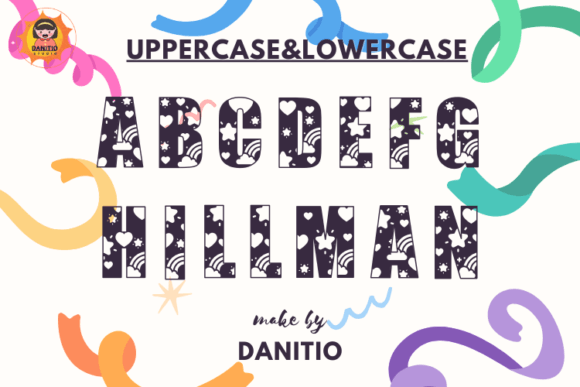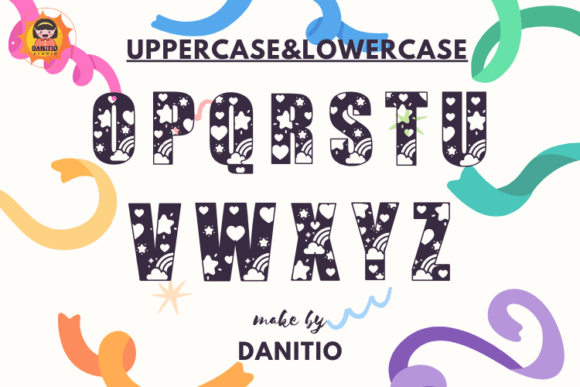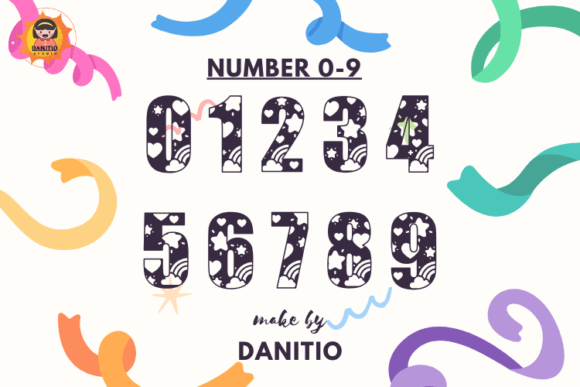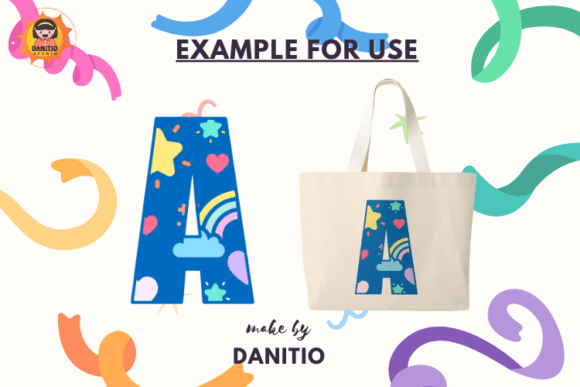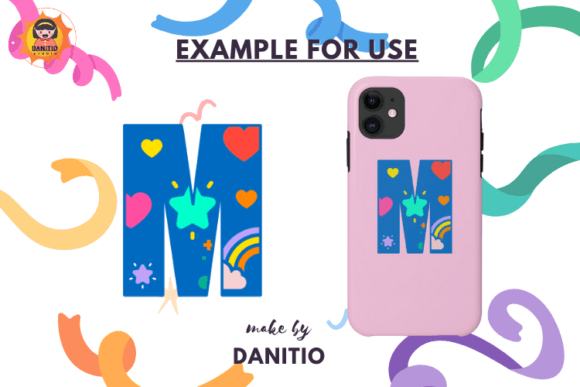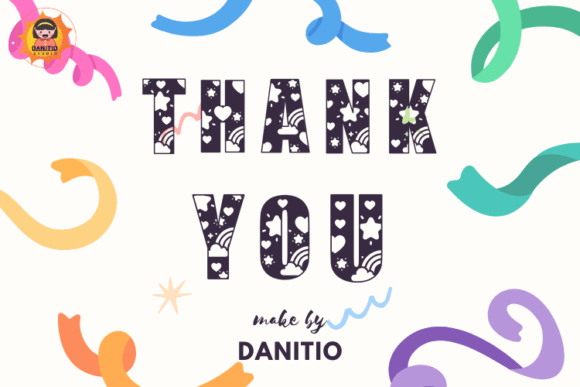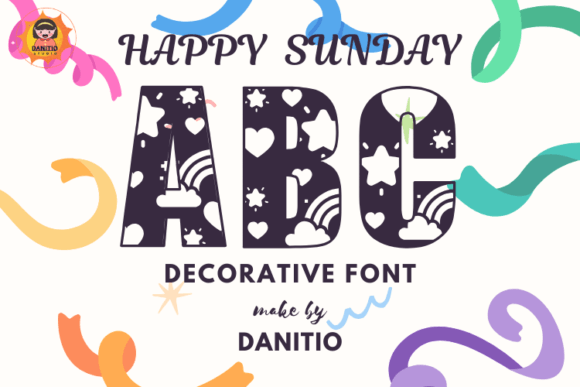
Happy Sunday Font: Add a Touch of Whimsy to Your Designs
Are you tired of using the same old fonts in your designs? Look no further than the Happy Sunday Font, a cute and eye-catching decorative font that’s sure to add a touch of whimsy to your projects. This beautiful font is perfect for designers and crafters who want to create fun and engaging content that stands out from the crowd.
What Makes Happy Sunday Font So Special?
Happy Sunday Font is a magical font that consists of letters decorated with sparkling celebration stars. The font is designed to be fun and playful, making it perfect for projects that require a lighthearted touch. Whether you’re creating posters, flyers, social media posts, or greeting cards, this font is sure to add a touch of personality to your designs.
Uses for Happy Sunday Font
Happy Sunday Font is a versatile font that can be used in a variety of projects, including:
- Posters: Create eye-catching posters for events, promotions, or announcements that will grab the attention of your audience.
- Flyers: Design flyers for parties, sales, or other events that will make your audience smile.
- Social Media Posts: Add a touch of whimsy to your social media posts and make them stand out from the crowd.
- Greeting Cards: Create cute and personalized greeting cards for special occasions like birthdays, holidays, or weddings.
- Stationery Artwork: Use Happy Sunday Font to create beautiful and eye-catching stationery artwork that will make your letters and notes stand out.
Why Designers and Crafters Love Happy Sunday Font
Designers and crafters love Happy Sunday Font for several reasons:
- Unique and Eye-Catching: The font’s sparkling celebration stars make it a unique and eye-catching addition to any design.
- Fun and Playful: The font’s playful design makes it perfect for projects that require a lighthearted touch.
- Versatile: Happy Sunday Font can be used in a variety of projects, from posters and flyers to social media posts and greeting cards.
Tips for Using Happy Sunday Font
Here are a few tips for using Happy Sunday Font in your designs:
- Use it sparingly: While Happy Sunday Font is eye-catching, it can be overwhelming if used too much. Use it sparingly to add a touch of whimsy to your designs.
- Pair it with other fonts: Happy Sunday Font pairs well with other fonts, such as sans-serif fonts or script fonts. Experiment with different pairings to find the one that works best for your design.
- Experiment with colors: The font’s sparkling celebration stars look great in a variety of colors. Experiment with different colors to find the one that works best for your design.
Happy Sunday Font is a beautiful and eye-catching decorative font that’s perfect for designers and crafters who want to add a touch of whimsy to their projects. With its sparkling celebration stars and playful design, this font is sure to make your designs stand out from the crowd. Whether you’re creating posters, flyers, social media posts, or greeting cards, Happy Sunday Font is a great choice. So why not give it a try and see how it can add a touch of magic to your designs?